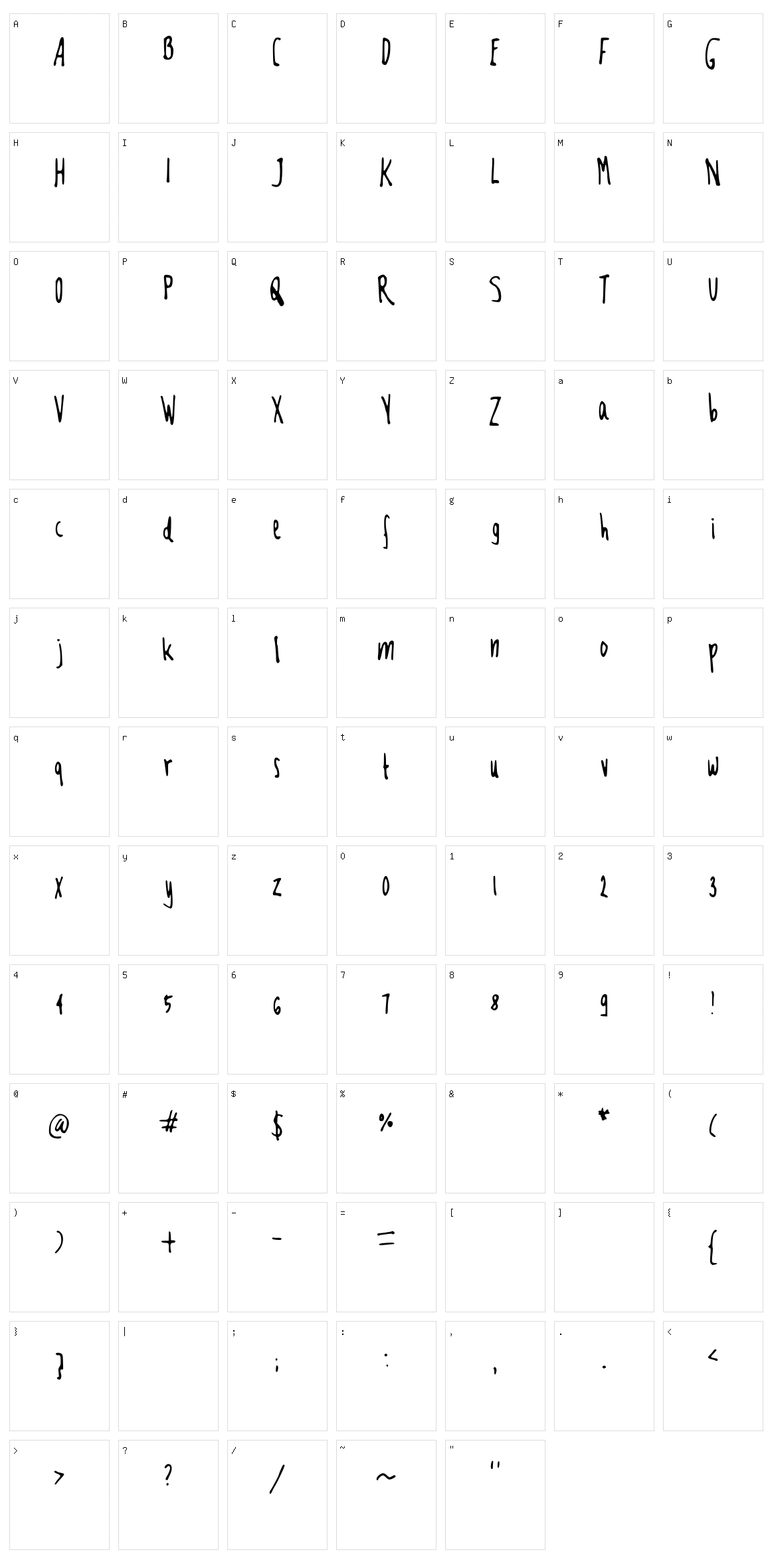
The free font Mfooont is carefully designed by Natasha Garritsen, showcasing a thoughtful balance of creativity and usability and falls under the Script font style. When you download the ZIP file, it contains only 10.51 KB of font files, making it lightweight and quick to download. Please review the license details below to understand permitted usage and distribution rights. If license information is not available, we recommend using this font for personal projects only or contacting the author directly for commercial usage permissions.